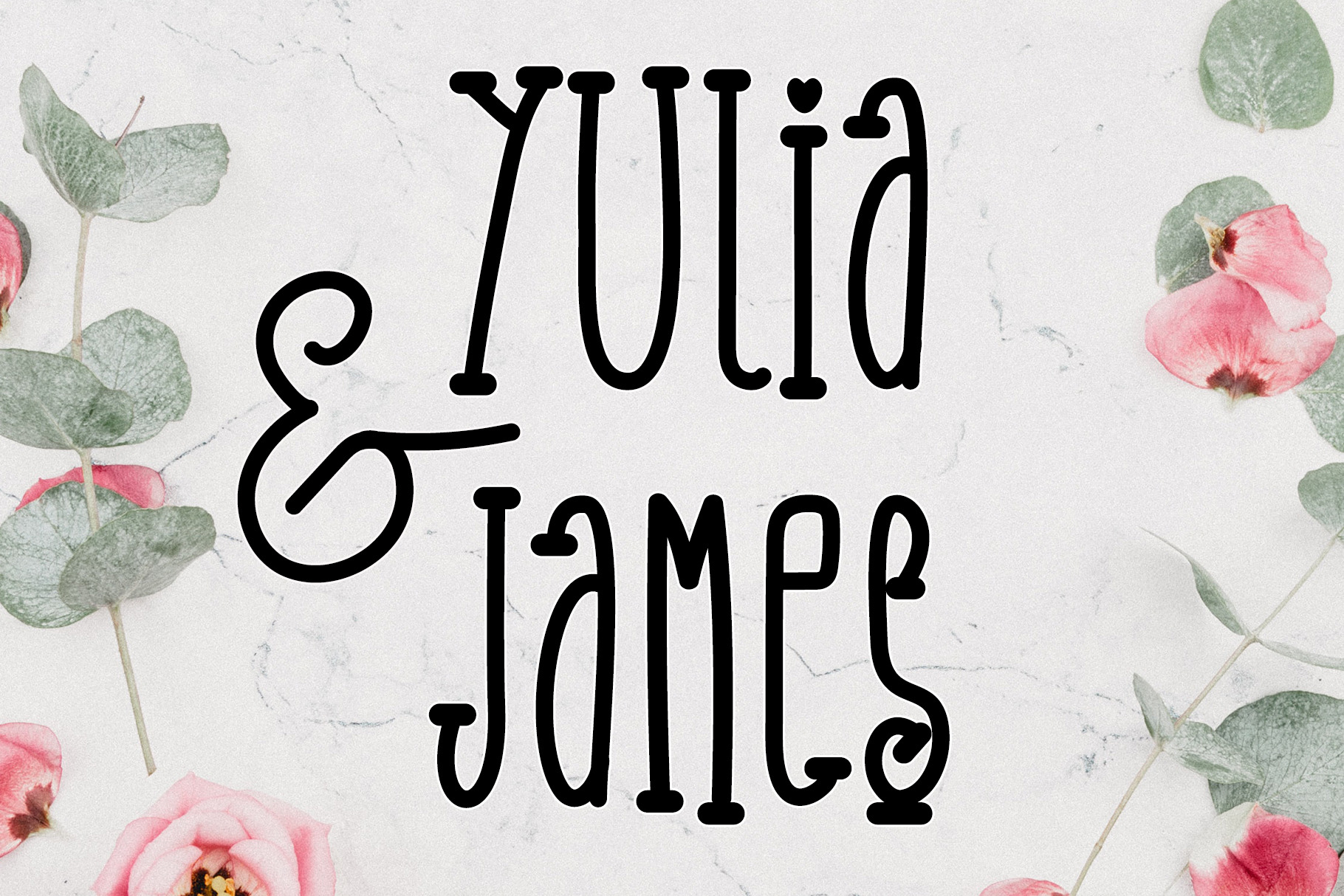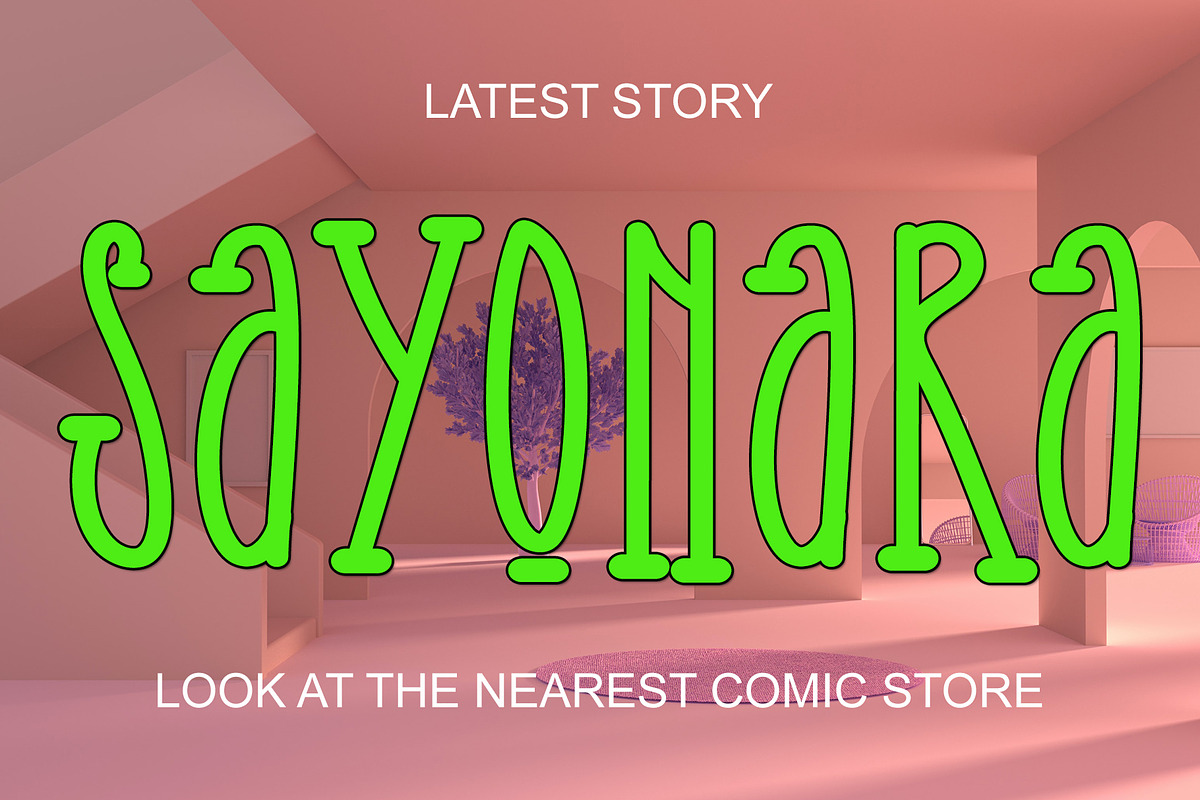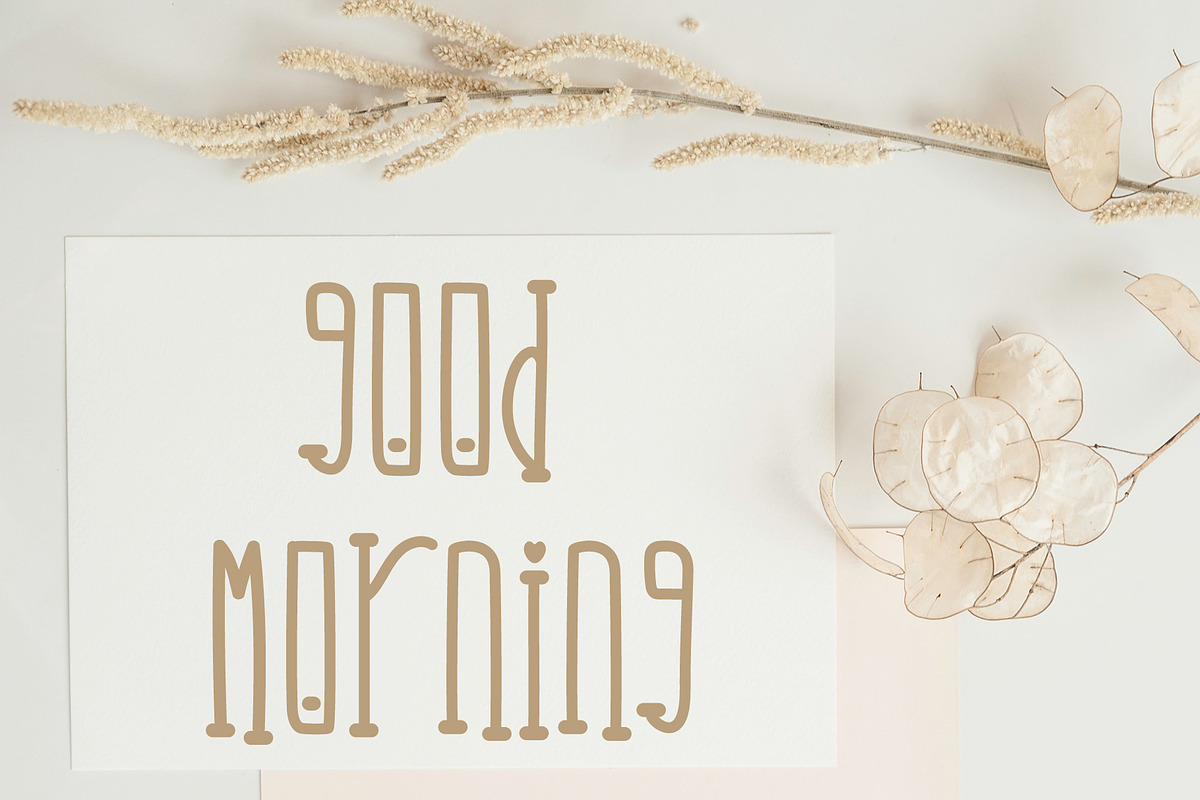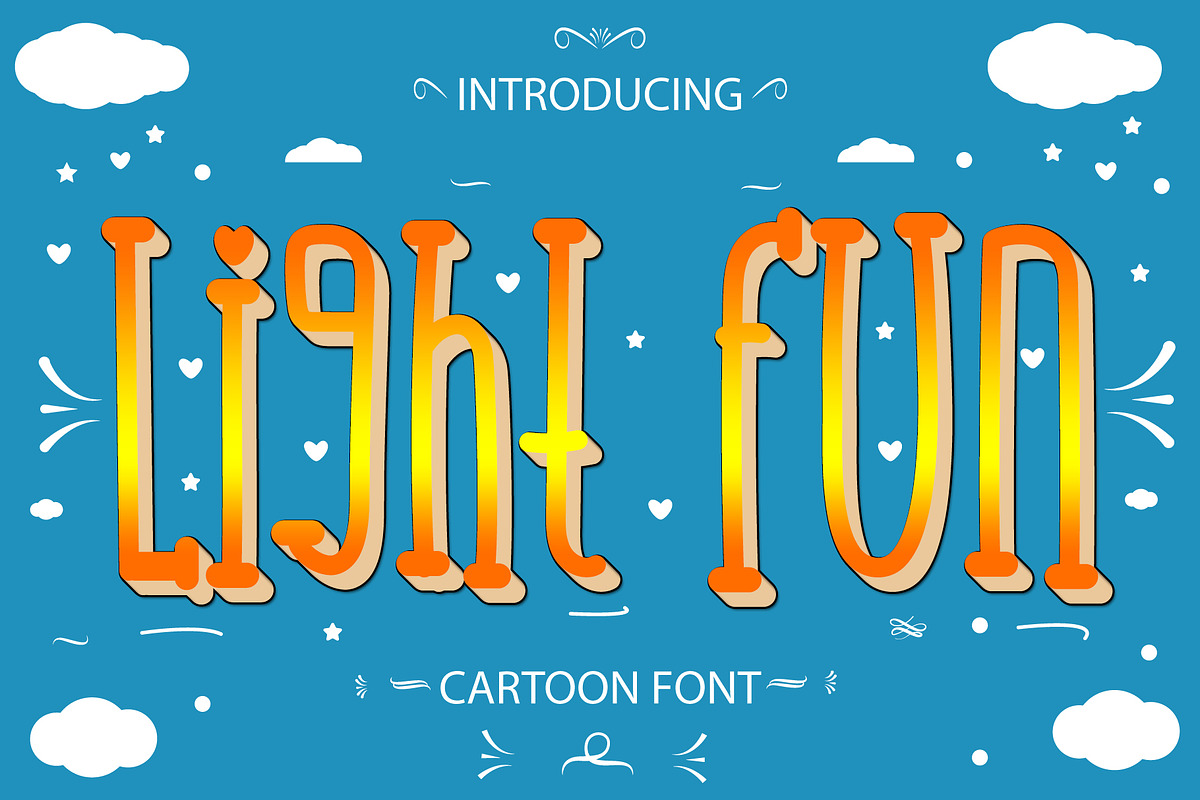
Light Fun – Playful Monoline Font
Light Fun is a cheerful and dynamic monoline font that brings a spark of joy to any design project. With its smooth lines and playful personality, Light Fun is perfect for cartoons, comics, YouTube thumbnails, Instagram posts, Facebook banners, Twitter graphics, and so much more.
Designed with versatility in mind, this font fits seamlessly into entertainment branding, TV shows, children’s products, fun company logos, creative product names, and vibrant digital content. Whether you're working on a YouTube intro, social media campaign, or comic-style headline, Light Fun adds that bold and friendly touch you need.
Its clean, hand-drawn monoline style makes it ideal for modern yet whimsical aesthetics, without compromising legibility. Light Fun also works great for print and digital media, including posters, website banners, and product packaging.
Cartoon & comic titles
YouTube intros & thumbnails
Instagram & Facebook graphics
TV and entertainment branding
Company & product names
Kids’ merchandise & packaging
Fun and modern logos
Web & social media content